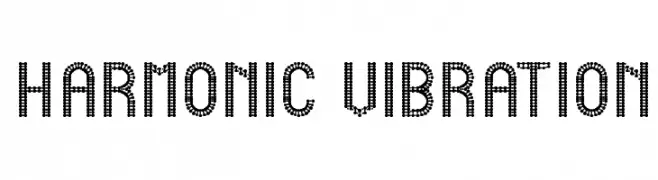
( weknow - Wino S Kadir - www.creativefabrica.com/designer/weknow/ )
A modern, dotted decorative font with a playful and unique style.
( weknow - Wino S Kadir - www.creativefabrica.com/designer/weknow/ )
A modern, dotted italic font with a digital aesthetic.
( I HAVE LOST MY MARBLES )
A bold, dotted font with a playful, digital appearance.
( Benjamin Failor )
A playful font with characters inside teapot shapes, featuring dotted steam for a whimsical touch.
( DaShiz )
A dotted handwriting guide font for educational use.
( DaShiz )
A dotted educational font for teaching handwriting.
( DaShiz )
A dotted cursive font designed for handwriting practice.
( DaShiz )
A dotted guide font for practicing cursive handwriting.
( DaShiz )
A dotted cursive handwriting guide for learning letter formation.
( GeelynEdits - plus.google.com/u/0/108461348931992643310/ )
A playful, dotted font with a bubble-like appearance, perfect for creative projects.